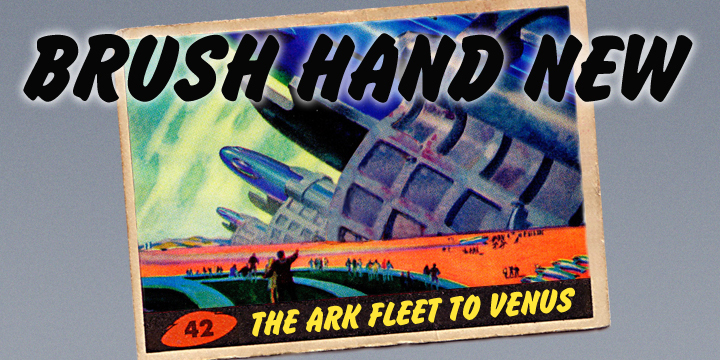
Brush Hand New from K-Type is a free cartoon display font with broad, rounded strokes and a lively hand-painted silhouette. The letters lean and swell at different points, with soft corners and tight joins that keep the line energetic.
Its cheerful comic style is especially apt for children's entertainment, food packaging, and festival posters. The chunky shapes suit mascot-like wordmarks for toy brands or casual games, sharing the buoyant spirit of cartoon illustration.
Brush Hand New is a font based on a copy of Flash Bold called Brush Hand, which WSI marketed in the 1990s and which was later distributed through free-font websites. Brush Hand was an anonymous redrawing of Flash that simplified and slightly lightened the design, smoothed its ragged edges, and improved the legibility of the original created by Edwin W. Shaar in 1939.
K-Type’s New version further refines the simplification. Its outlines were revised, some characters were redrawn, and its letter spacing was adjusted. The old Brush Hand was spaced erratically and too loosely. The expanded character set includes European accented characters.
Brush Hand New is a redrawing of Brush Hand, a 1990s font that improved Flash Bold by smoothing, lightening the weight and increasing legibility. The New version refines the outlines, spacing, kerning and adds characters.